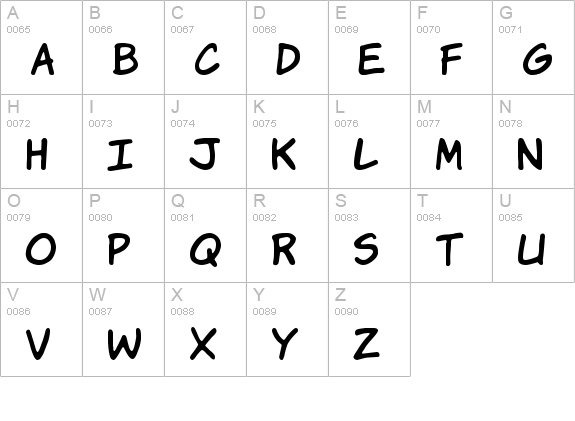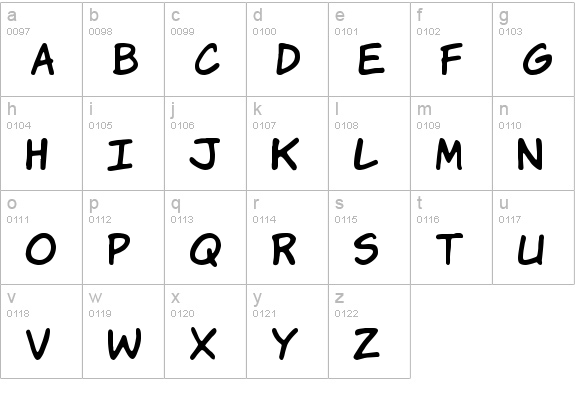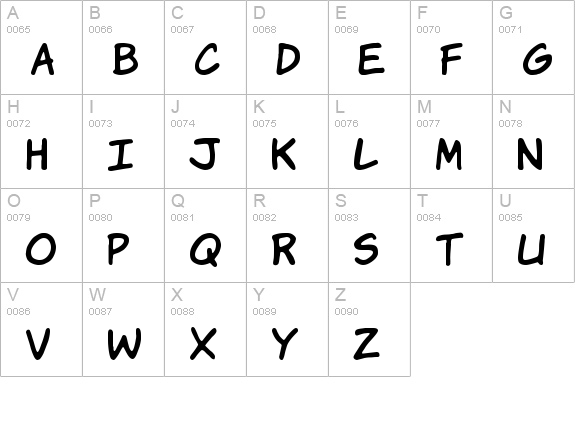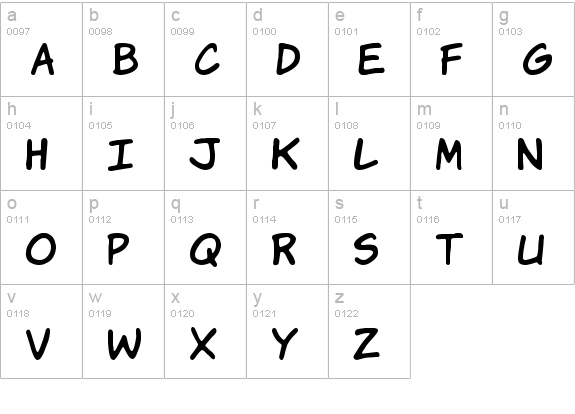
Komika Hand Font Details
Komika Hand is a charming and whimsical font that brings a playful touch to any design project. With its handwritten style and quirky details, this font is perfect for adding a unique and personal touch to your creations. Whether you're designing greeting cards, invitations, or social media graphics, Komika Hand is sure to stand out and make a statement. The best part? Komika Hand is completely free to download at FontsMarket.com. That's right, you can add this delightful font to your collection without spending a dime. So why wait? Download Komika Hand today and let your creativity run wild with this fun and versatile typeface.